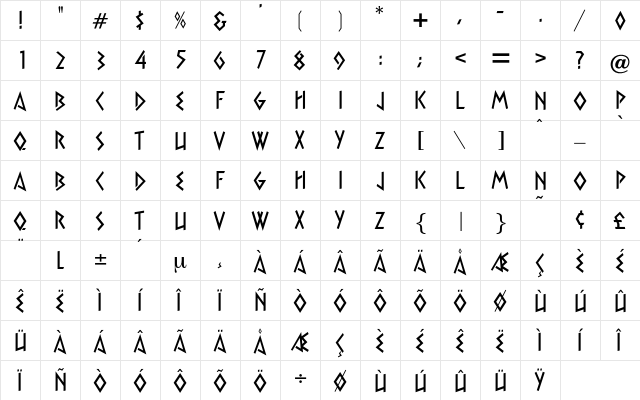
Cleopatra Regular
Design Context for Cleopatra Typeface
Cleopatra is a composed and adaptable typeface that performs quietly and consistently across a wide range of design contexts.